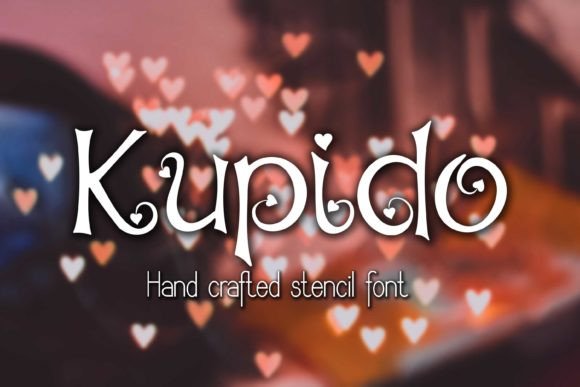
Introducing Kupido Font, the perfect decorative font for those looking to add a touch of love to their designs! Created by the talented Eva Barabasne Olasz, this font family is the best choice for those who want to incorporate a heart into their typography.
With Kupido Font, you'll get a unique stencil font that's unlike anything else out there. Its characters are specially designed without closed loops, making them stand out in any design project. Whether you're working on a wedding invitation, Valentine's Day card, or simply want to add a romantic touch to your website, Kupido Font is the perfect choice.
What sets Kupido Font apart from other decorative fonts is its ability to capture emotions and convey feelings through its design. It evokes the feeling of love and warmth, making it perfect for any occasion that celebrates relationships and togetherness.
Kupido Font is not just any ordinary decorative font. Its unique design and the ability to capture emotions makes it a perfect choice for those who want to create a lasting impression. You can use it to create a powerful impact in your marketing campaigns, websites, social media, or any other design project.